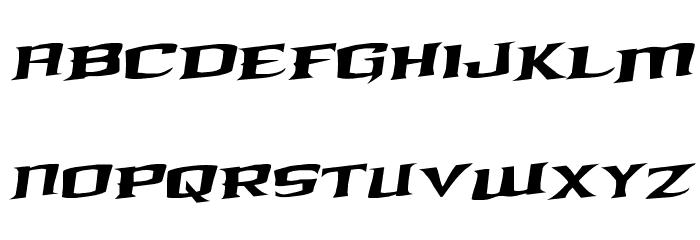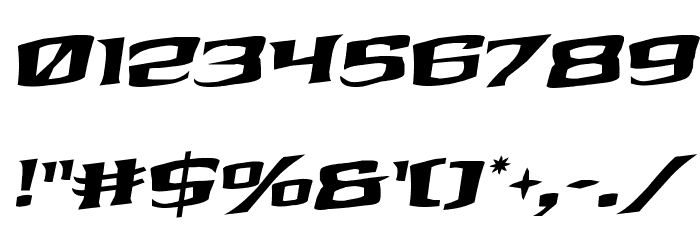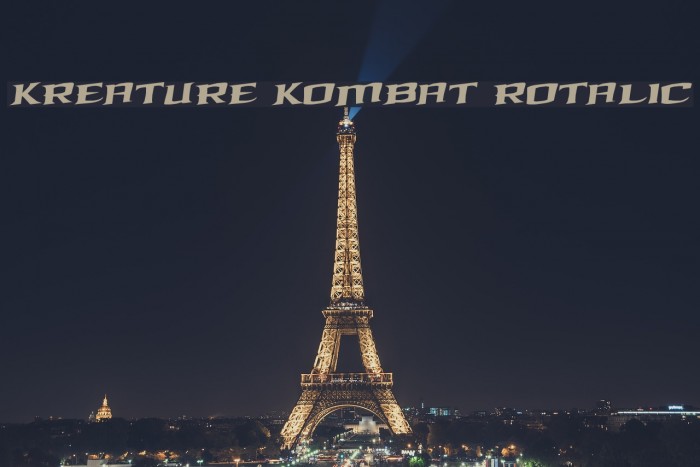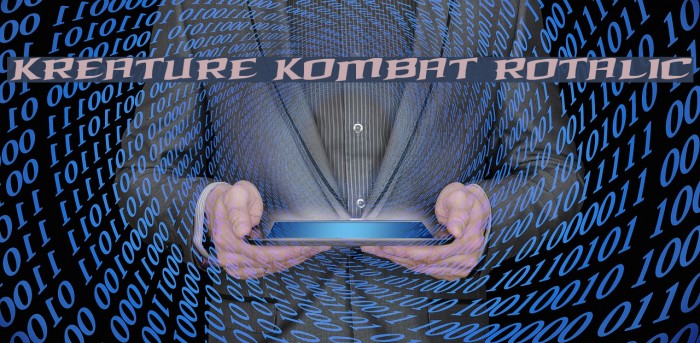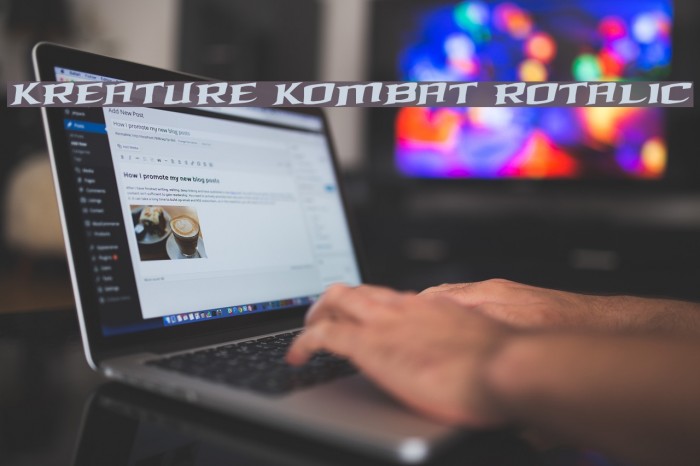
Kreature Kombat Rotalic Font
This font features a bold and aggressive style with sharp, angular edges and a dynamic slant, giving it a sense of motion and intensity. The uppercase and lowercase letters maintain a consistent design, emphasizing the font's edgy and modern aesthetic. The numerals and special characters are crafted with the same boldness, ensuring uniformity across all characters. The font's unique style makes it stand out, perfect for projects that require a strong visual impact.
A bold, angular, and slanted font with a modern, aggressive style.
- Proposed Projects: Ideal for video game titles, sports branding, action movie posters, and edgy graphic designs.